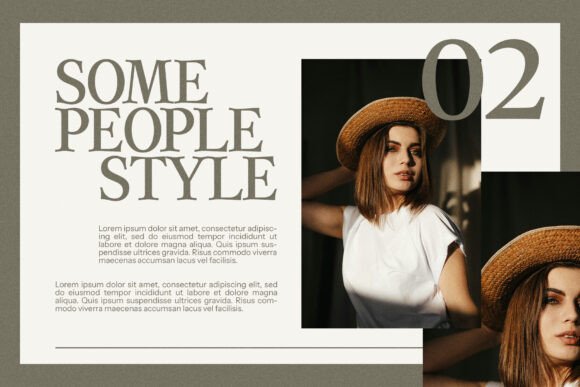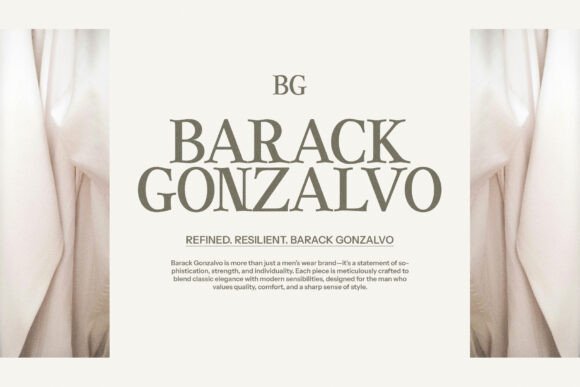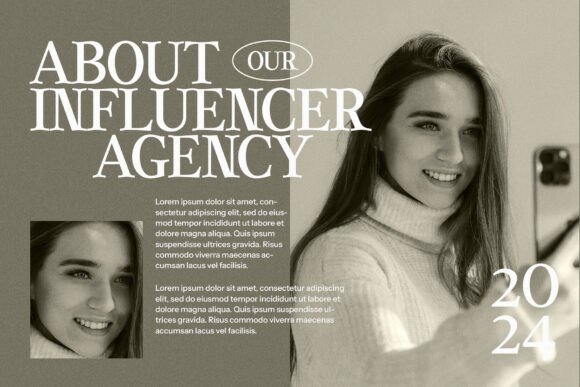
Introduction to Miecle Wiklen Font
As a designer, there’s nothing quite like the thrill of finding the perfect font to elevate your creative project. You’ve spent hours pouring over design inspiration, testing different styles, and searching for that elusive “wow” factor. And then, it happens – you stumble upon a font that perfectly captures the essence of your vision. For me, that font was Miecle Wiklen Font. Its sophisticated elegance and vintage charm immediately caught my eye, and I knew I had to learn more.
With its unique blend of modern design elements and vintage influences, Miecle Wiklen Font offers a perfect balance of style and legibility, making it an invaluable resource for designers. Whether you’re working on a high-end luxury brand, a boutique website, or product packaging, this font exudes a polished, timeless sophistication that’s hard to find elsewhere.
Key Features of Miecle Wiklen Font
- High-quality font design suitable for creative projects and design resources.
- Unique, hand-drawn style with a transparent background, allowing for easy customization.
- Supports a wide range of languages and characters, making it a versatile design resource.
- Perfect for designers, artists, and creatives working on various projects, from graphics to publications.
Honest Review: Miecle Wiklen Font
I recently had the opportunity to work with the Miecle Wiklen Font, and I must say it’s a great addition to any design project. This font is perfect for creating a unique and eye-catching look for your creative project.
Here are some of the things that I think work well with the Miecle Wiklen Font:
- ✨ High-quality design: The font is well-crafted and has a smooth, professional look.
However, I did encounter some limitations while working with the Miecle Wiklen Font:
- ⚠️ Limited font styles: While the font is great, it’s a bit limited in terms of font styles and variations.
- ⚠️ Not ideal for long text: Due to its unique design, the font may not be the best choice for long blocks of text.
To get the most out of the Miecle Wiklen Font, use it on a transparent background to give your design a unique look. You can also experiment with different font sizes and colors to add more creativity to your project.
The Miecle Wiklen Font is commonly used for creative projects such as logo design, brochures, and business cards. It is also a popular choice for designers who need a high-quality font with a transparent background.